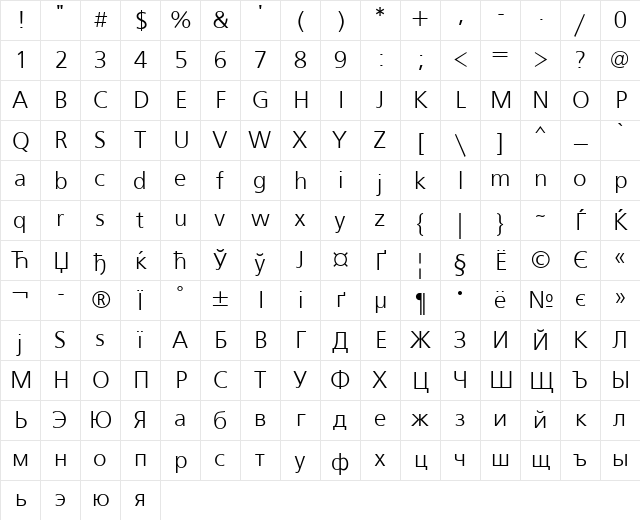
FreeSetC Regular
Foundry: ParaType, Inc
Design Context for FreeSetC
FreeSetC is a composed and adaptable typeface that performs quietly and consistently across a wide range of design contexts.